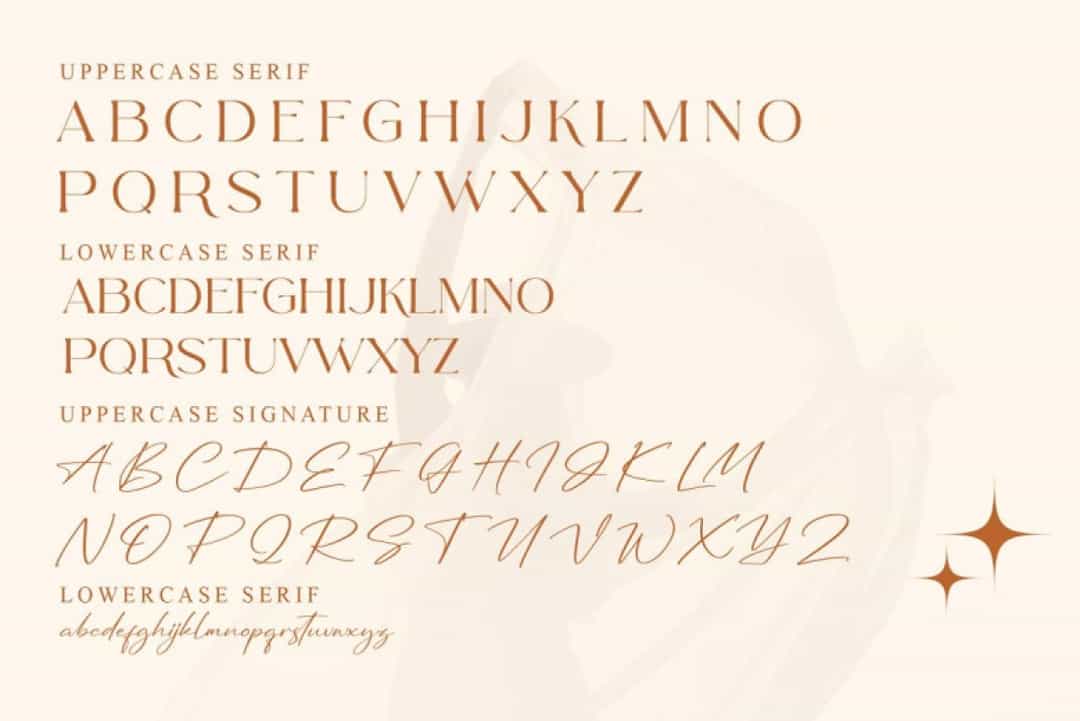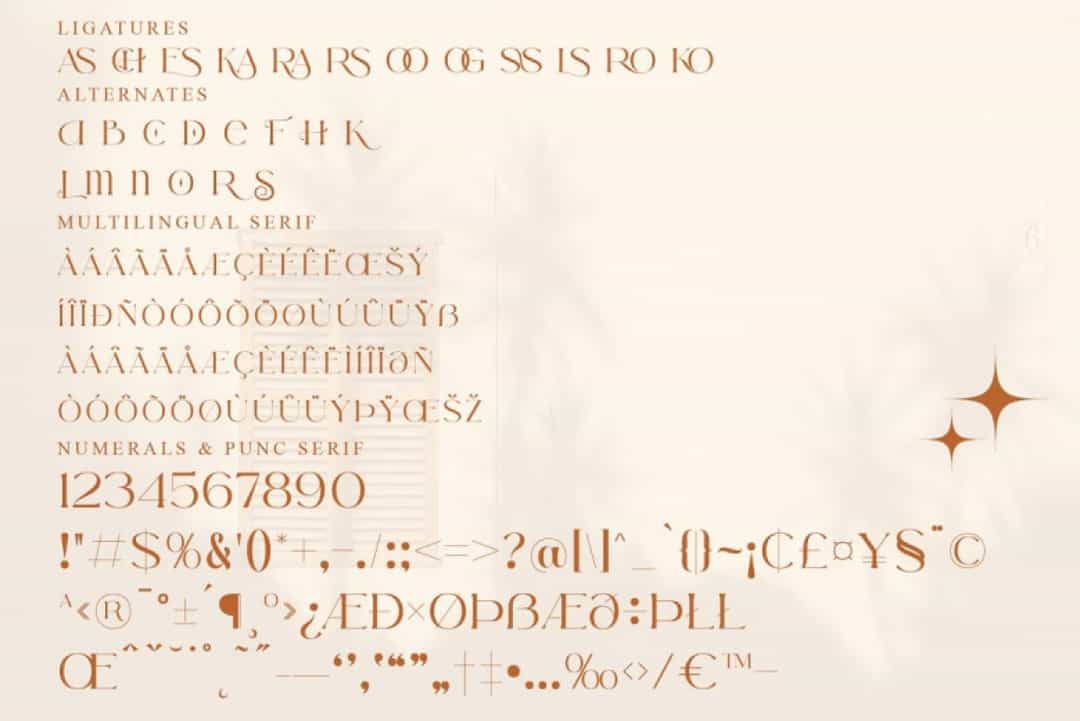
Storytype’s Arolse Belmonteria Font Duo, an elegant serif modern and classic script typeface with its own distinct style and contemporary appearance is now available for your use to create stunning logos, movie or book name designs and fashion labels, magazines clothing letters and quotes, fashion label design among many other uses.